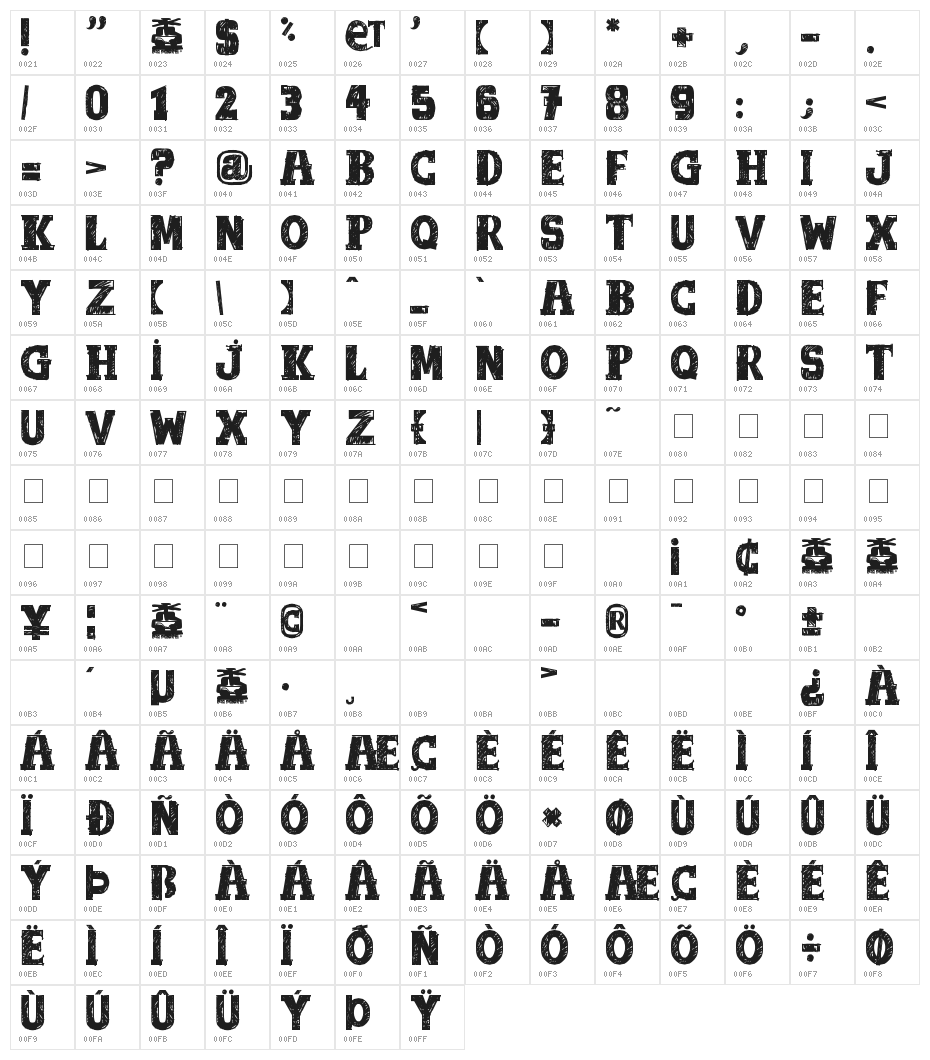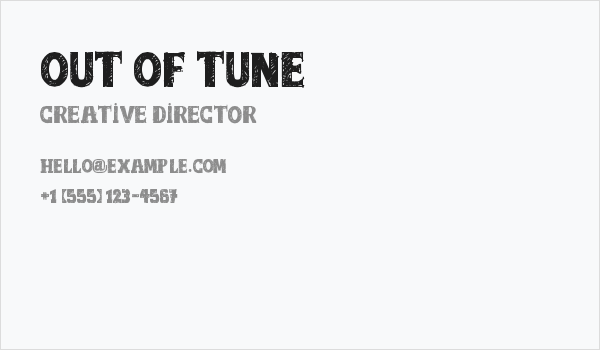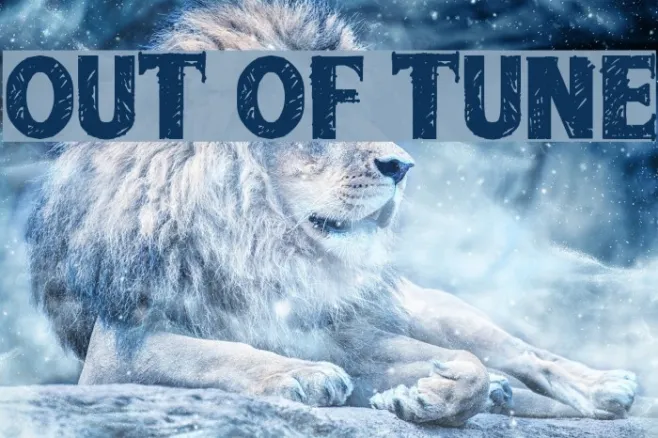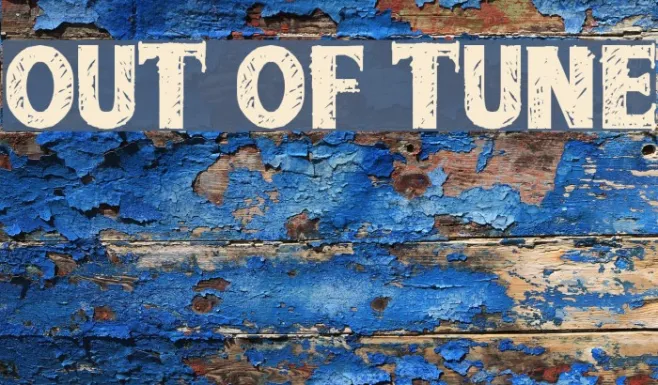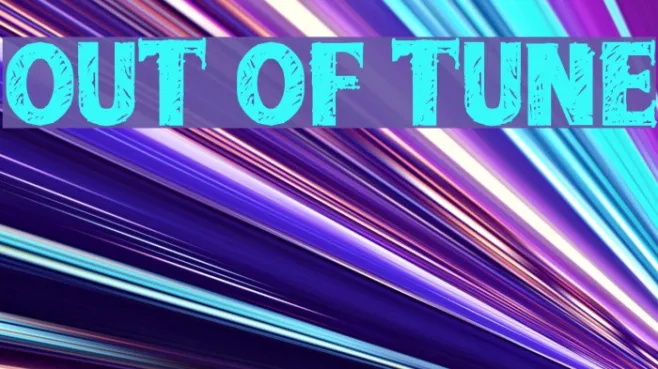
out of tune Font
out of tune Description
This font features a bold, distressed style with a rough, textured appearance that gives it a rugged and edgy look. The uppercase and lowercase letters maintain a consistent weight, providing a strong visual impact. The numbers and special characters follow the same distressed aesthetic, making them suitable for designs that require a grunge or vintage feel. The font's boldness and unique texture make it stand out, ideal for projects that aim to convey a sense of boldness and creativity.
| Proposed Projects | Ideal for posters, album covers, branding for edgy products, and any design requiring a vintage or grunge aesthetic. |